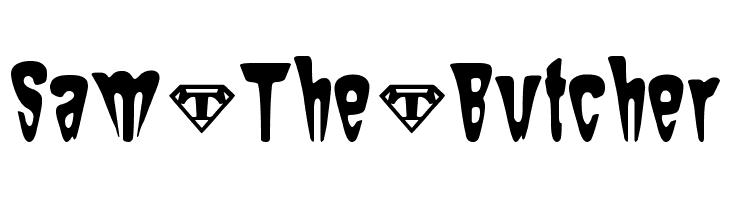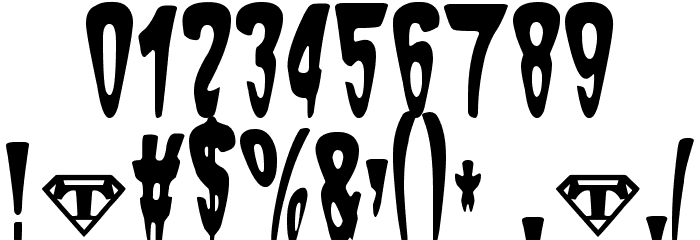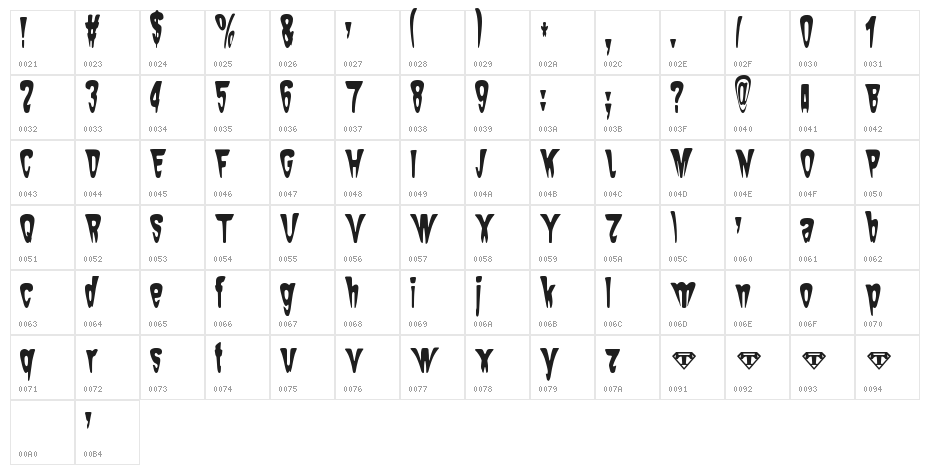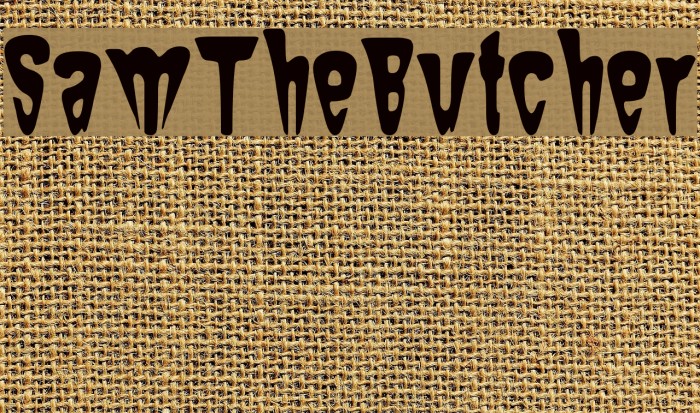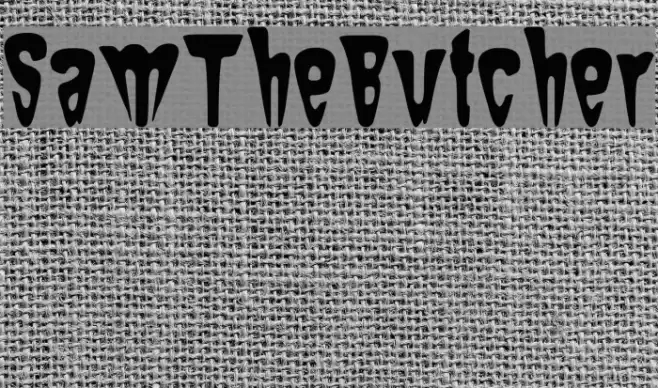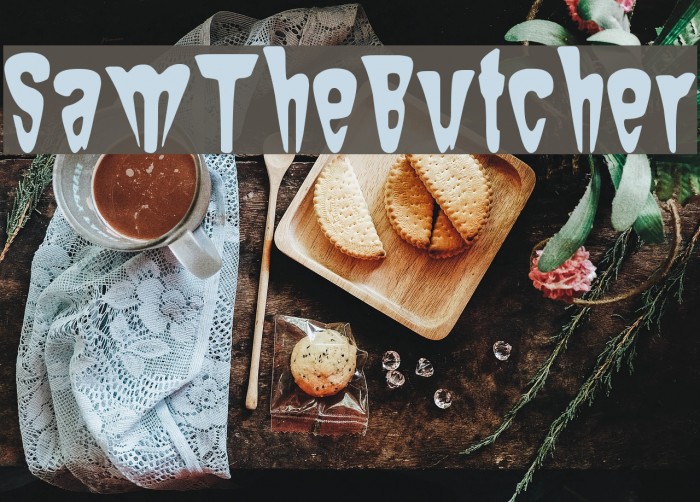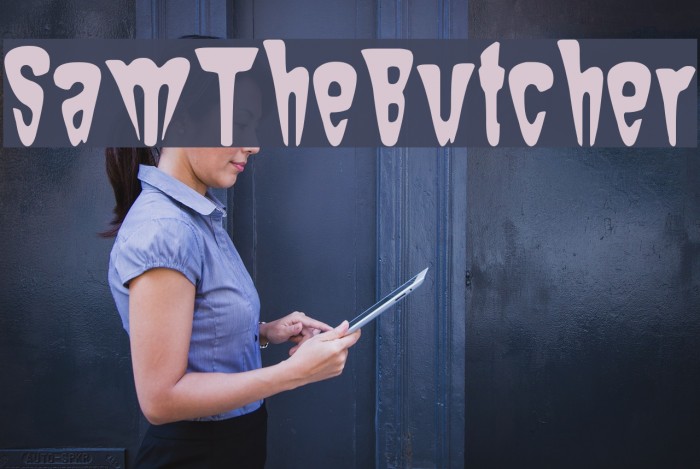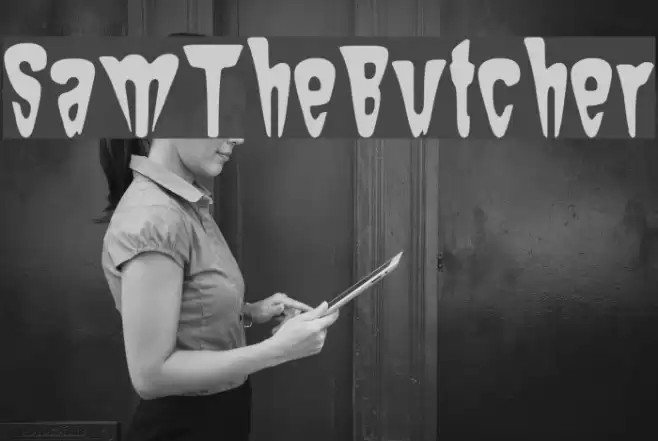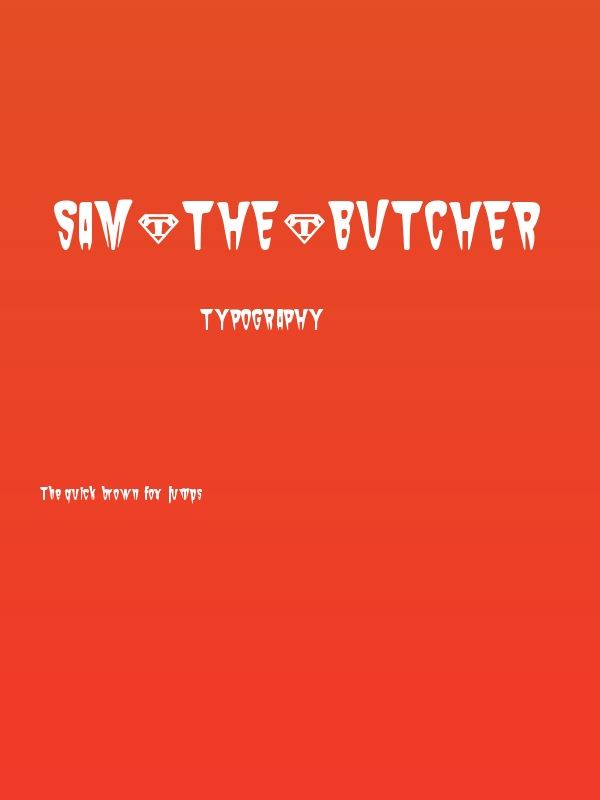
Sam-The-Butcher Font
Sam-The-Butcher Description
This font features a bold and dramatic style with exaggerated, sharp angles and a slightly irregular form, giving it a distinctive and edgy appearance. The uppercase letters are tall and narrow, with pointed ends that create a sense of movement and intensity. The lowercase letters maintain this dynamic style, with some characters having unique curves and twists. The numbers and special characters follow the same bold and expressive design, making them stand out. Overall, this font exudes a sense of boldness and creativity, perfect for making a statement.
| Proposed Projects | Ideal for horror-themed posters, Halloween invitations, edgy branding, or any project needing a bold, dramatic touch. |